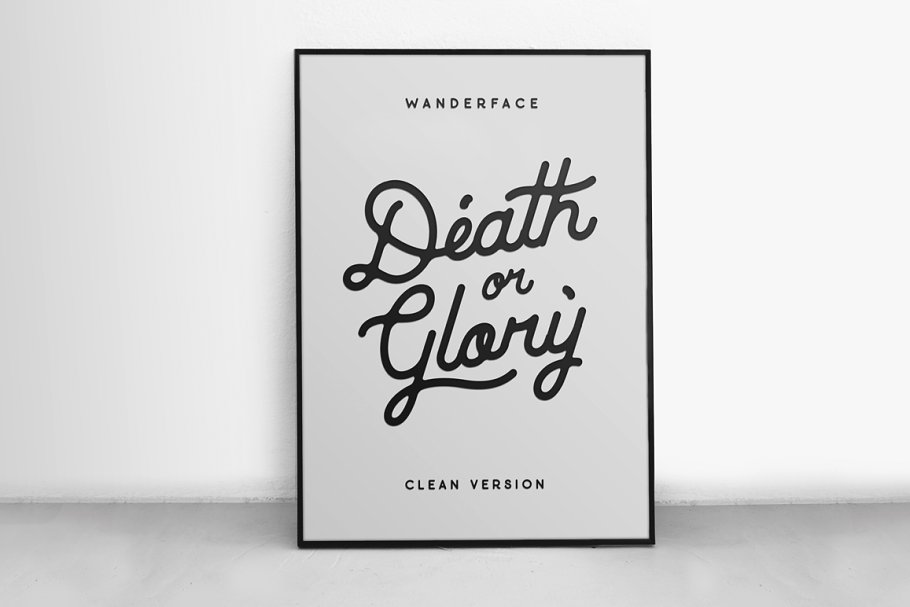
Introducing Baheula Vintage + Clean Typeface - the ultimate font collection that will take your designs to the next level! Created by the talented Pratama Yudha, this script font family is here to revolutionize your lettering game.
Baheula Vintage Typeface is a meticulously crafted font inspired by hand-drawn lettering and vintage style. Its intricate details and timeless design make it perfect for creating masterful handlettering in no time! Whether you're working on digital lettering, branding materials, t-shirts, prints, business cards, quotes, logos, posters, or nature photography, Baheula Vintage Typeface will elevate your designs and make them stand out from the crowd.
With its clean, simple, and strong aesthetic, Baheula Vintage Typeface adds a touch of classic elegance to any graphic design project. Its hand-drawn look and feel add a unique charm that will captivate your audience and leave a lasting impression.
But what makes Baheula Vintage Typeface truly exceptional are its incredible features. From uppercase and lowercase letters to punctuation, symbols, ligatures, swashes, and stylistic alternatives, this font has it all. It even supports international languages and special glyphs, giving you endless possibilities for creative expression.